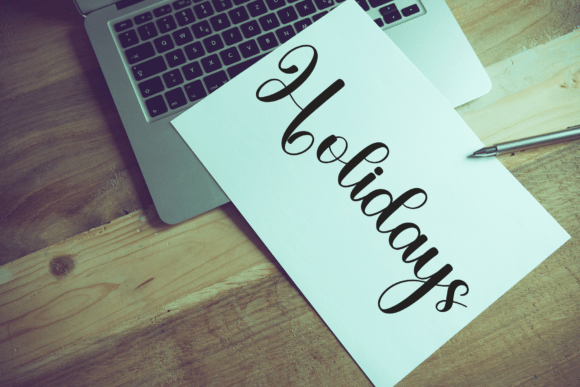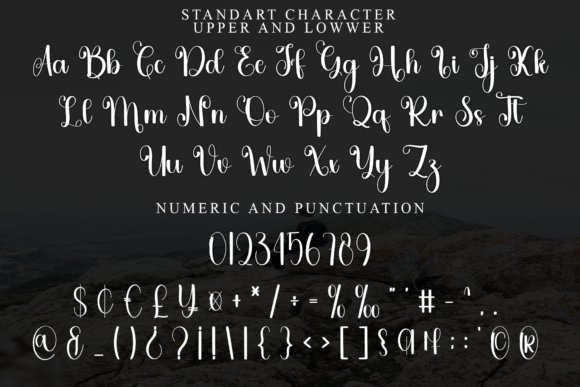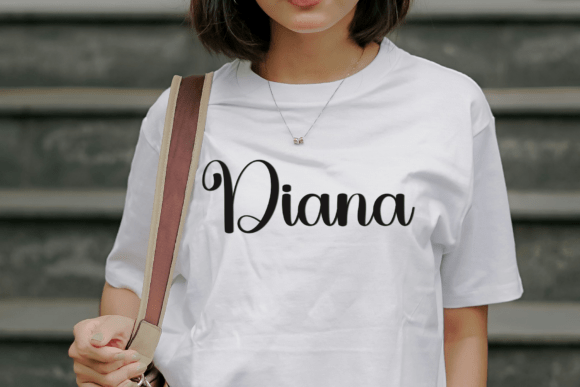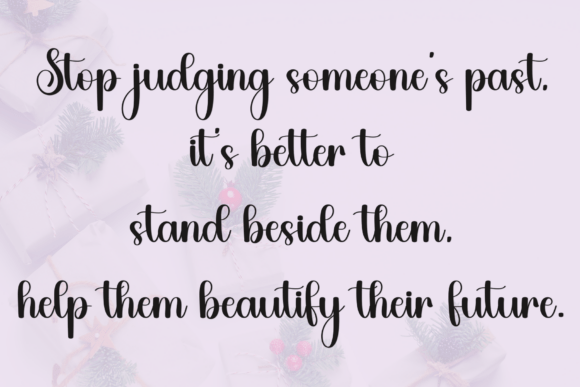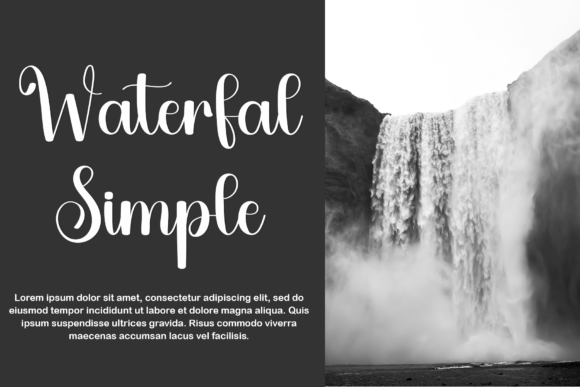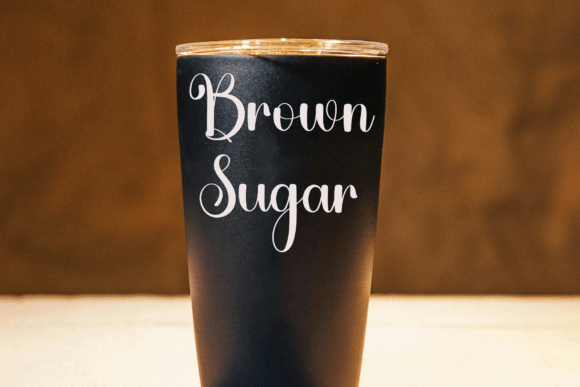
Cristian Font: Elevate Your Designs with a Unique and Versatile Typeface
In the world of typography, a font can make or break a design project. With the right font, you can convey your message, evoke emotions, and capture the attention of your audience. Cristian Font is a beautiful and eye-catching typeface that is designed to do just that. With its soft, unique touch and distinctive strokes, Cristian Font is the perfect addition to any design project, craft, or creative work.
A Font with Character
Cristian Font is a carefully crafted typeface that boasts a special character, making it both meaningful and versatile. Its unique strokes give it a distinctive look that sets it apart from other fonts. Whether you’re working on a logo, brochure, or social media graphic, Cristian Font is sure to make your design stand out. With a wide range of characters, you can experiment with different styles and effects to create a look that’s uniquely yours.
Cristian Font is a designer’s dream come true. Its natural font style and compatibility with various applications make it an ideal choice for a wide range of products. Whether you’re working on a commercial project or a personal craft, Cristian Font is the perfect companion. Use it to create stunning visual content, such as:
- Brochures and flyers
- Invitations and event materials
- Graphic design
- Digital art
- Advertising and marketing
Why Choose Cristian Font?
So, why choose Cristian Font over other typefaces? Here are just a few reasons:
- Unique and eye-catching design: Cristian Font is a one-of-a-kind typeface that will make your designs stand out.
- Wide range of characters: Experiment with different styles and effects to create a look that’s uniquely yours.
- Perfect for design projects and crafts: Cristian Font is ideal for a wide range of creative projects, from logos and branding materials to social media graphics and crafts.
In conclusion, Cristian Font is a beautiful and versatile typeface that is perfect for designers, crafters, and creatives of all kinds. With its unique and eye-catching design, wide range of characters, and compatibility with various applications, Cristian Font is sure to elevate your designs and capture the attention of your audience. Whether you’re working on a commercial project or a personal craft, Cristian Font is the perfect addition to your creative toolkit.